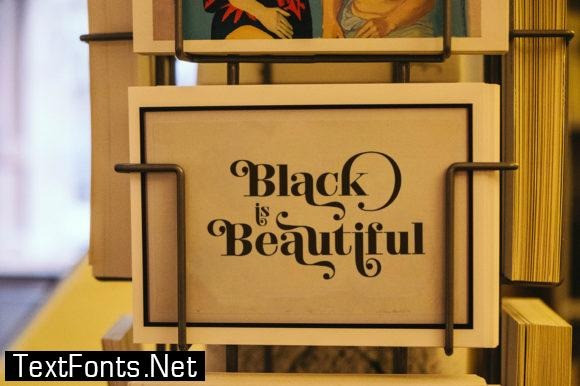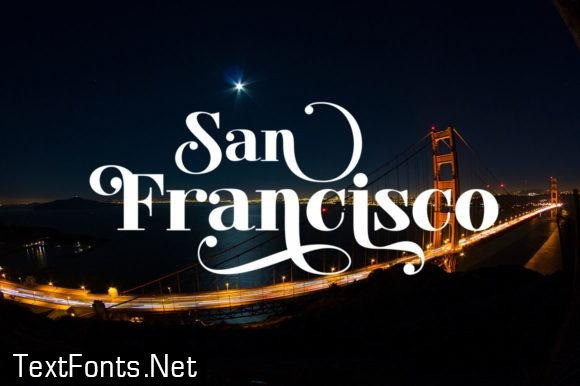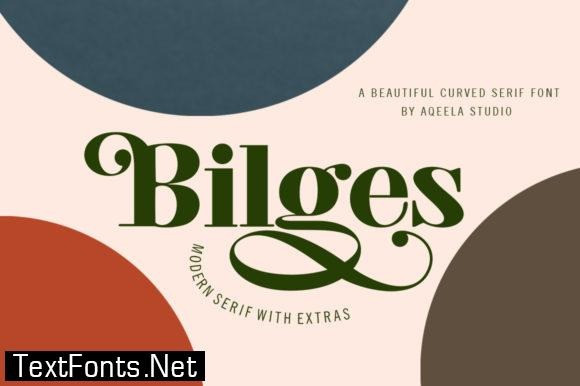
Bilges Font
Bilges Font by Aqeela Studio 19,273 downloads
Bilges Font
Bilges Serif Font is a sophisticated serif with many weights you can choose from. Perfect to be applied to the other various formal forms such as invitations, labels, logos, magazines, books, greeting/wedding cards, packaging, fashion, make-up, stationery, novels, labels, or any type of advertising purpose.